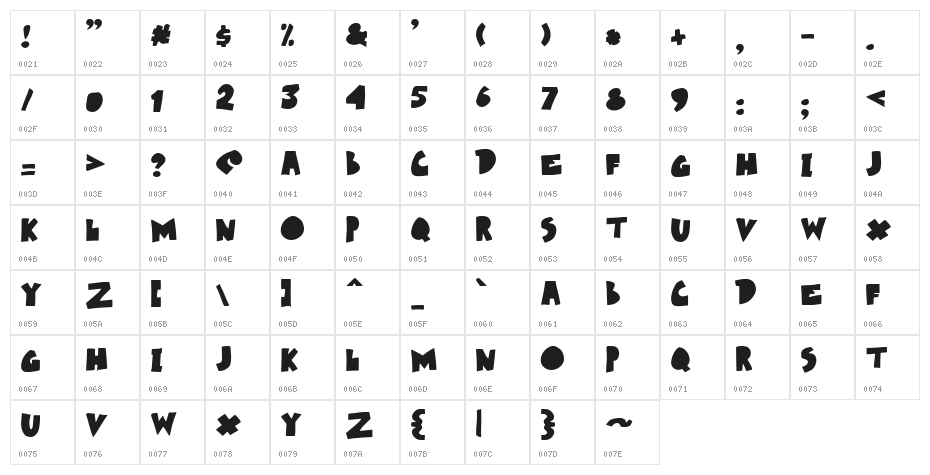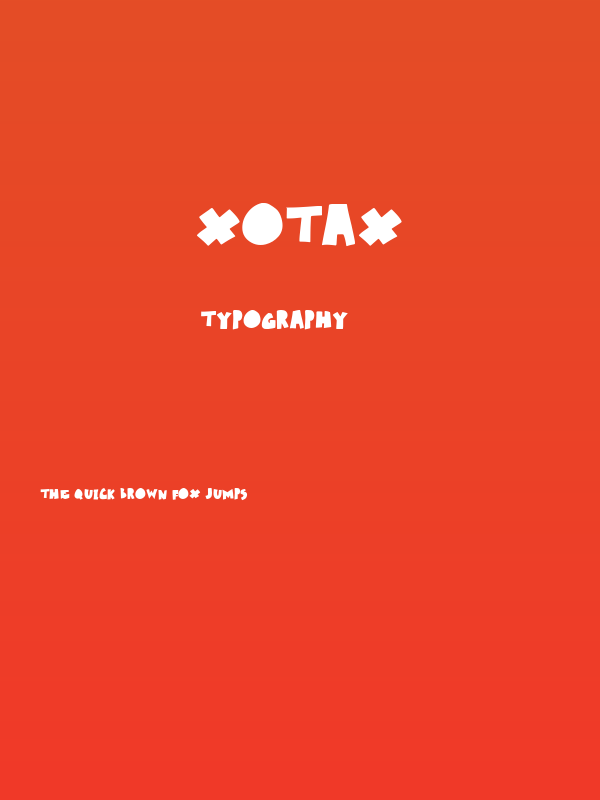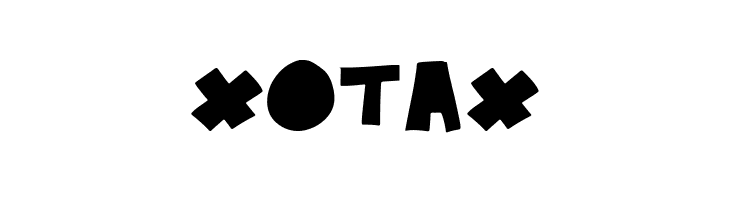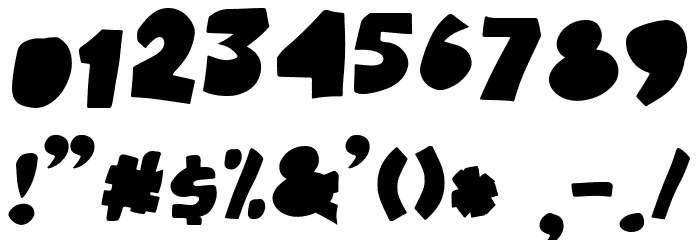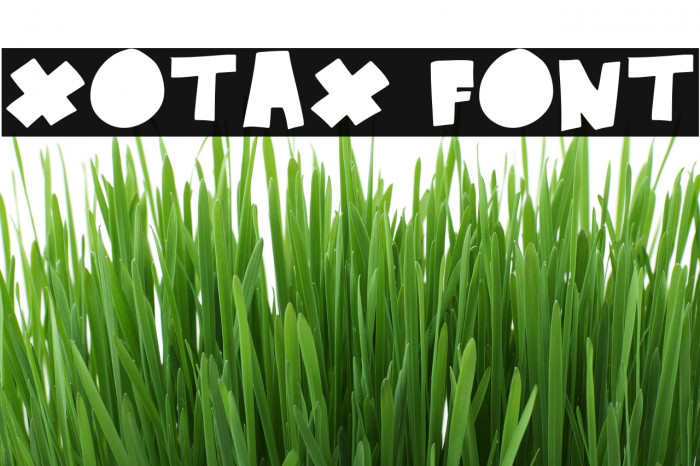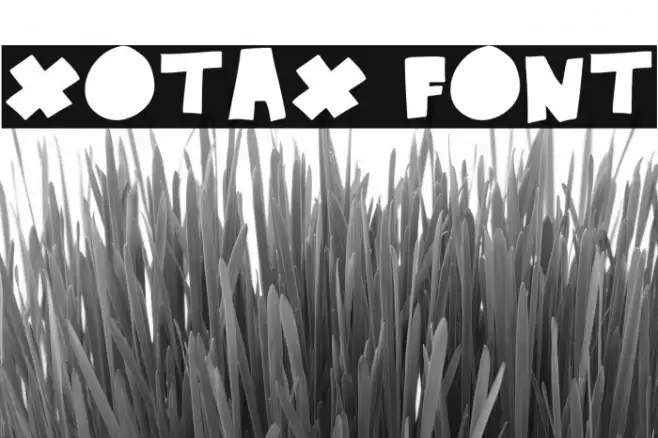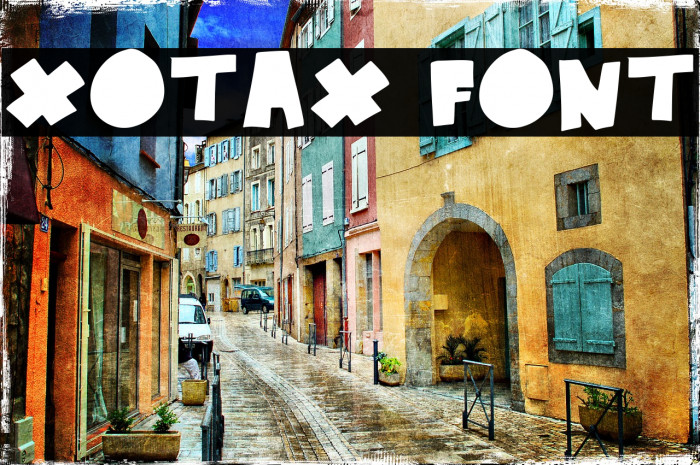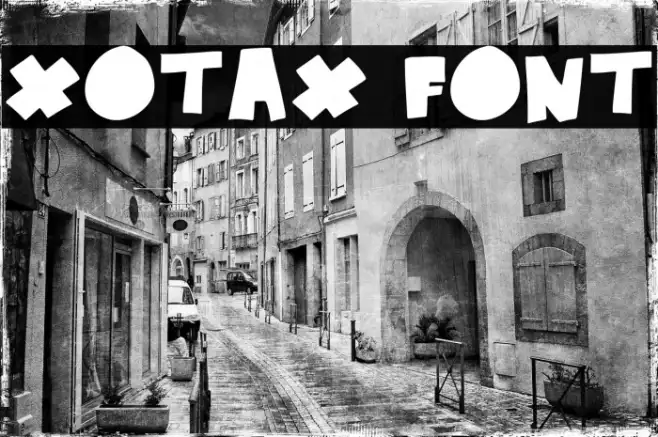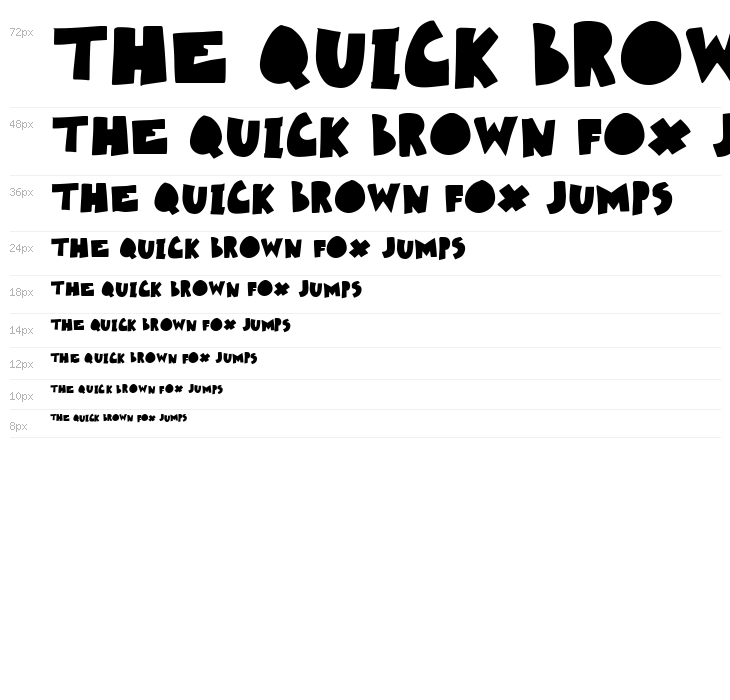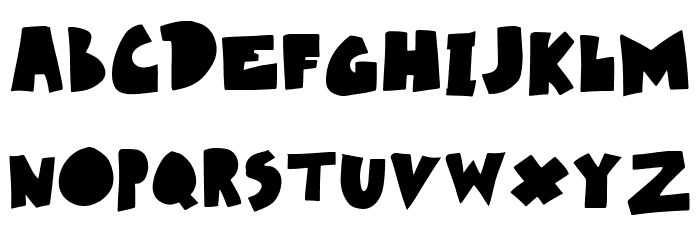
xotax Font
xotax Description
This font features a bold and playful design with exaggerated, irregular shapes that give it a whimsical and energetic feel. The characters are thick and chunky, with a hand-drawn appearance that adds a touch of informality and creativity. The uppercase and lowercase letters maintain a consistent style, with some letters having unique, quirky angles and curves. The numbers and special characters follow the same playful theme, making the font suitable for eye-catching designs. Its boldness ensures high visibility, making it ideal for projects that require a strong visual impact.
XOTAX UPPERCASE
XOTAX LOWERCASE
XOTAX OTHER CHARS
| Overall Style | Playful, Whimsical, Creative |
| Proposed Projects | Perfect for children's books, playful branding, posters, and creative invitations. |